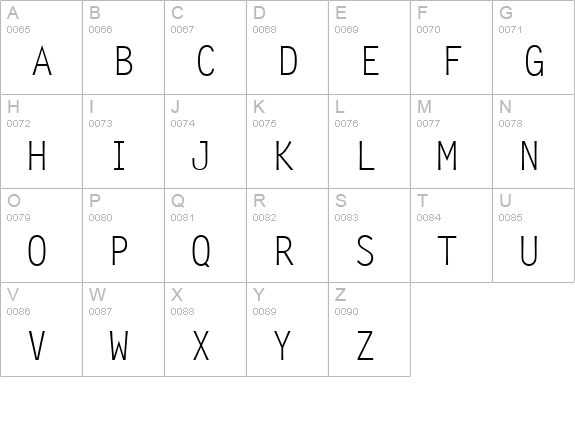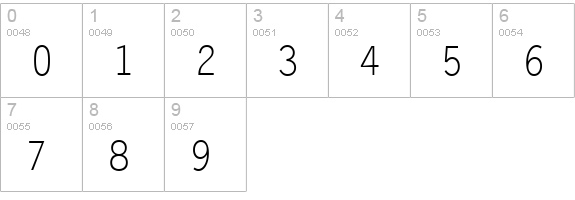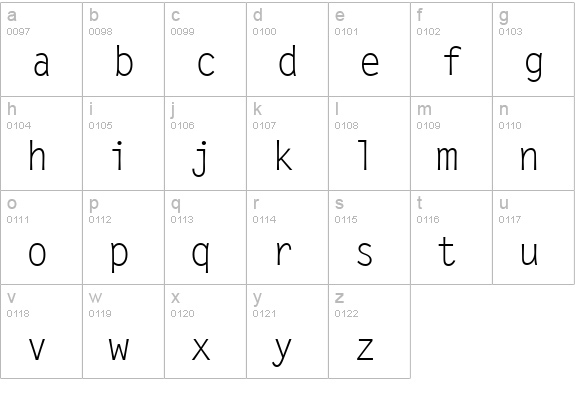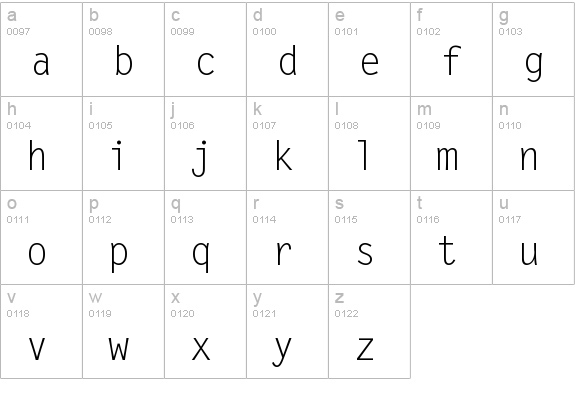
LetterGothic-Regular Font Details
LetterGothic-Regular is the standard, neutral variant in the LetterGothic typeface family \xE2\x80\x94 well suited to general body text, paragraphs, and standard typographic work.
LetterGothic-Regular is a versatile and modern font that combines clean lines with a touch of vintage flair. Its sleek and uniform design makes it perfect for a wide range of design projects, from branding and marketing materials to web design and print publications. The font's geometric shapes and sharp edges give it a contemporary aesthetic that is both eye-catching and easy to read. What sets LetterGothic-Regular apart is that it is available for free download at FontsMarket.com. This means that you can use this stylish font in your projects without any cost, making it a valuable resource for designers and creatives looking to elevate their work with a high-quality typeface. With its timeless appeal and professional design, LetterGothic-Regular is sure to make a bold statement in any project it is used in.